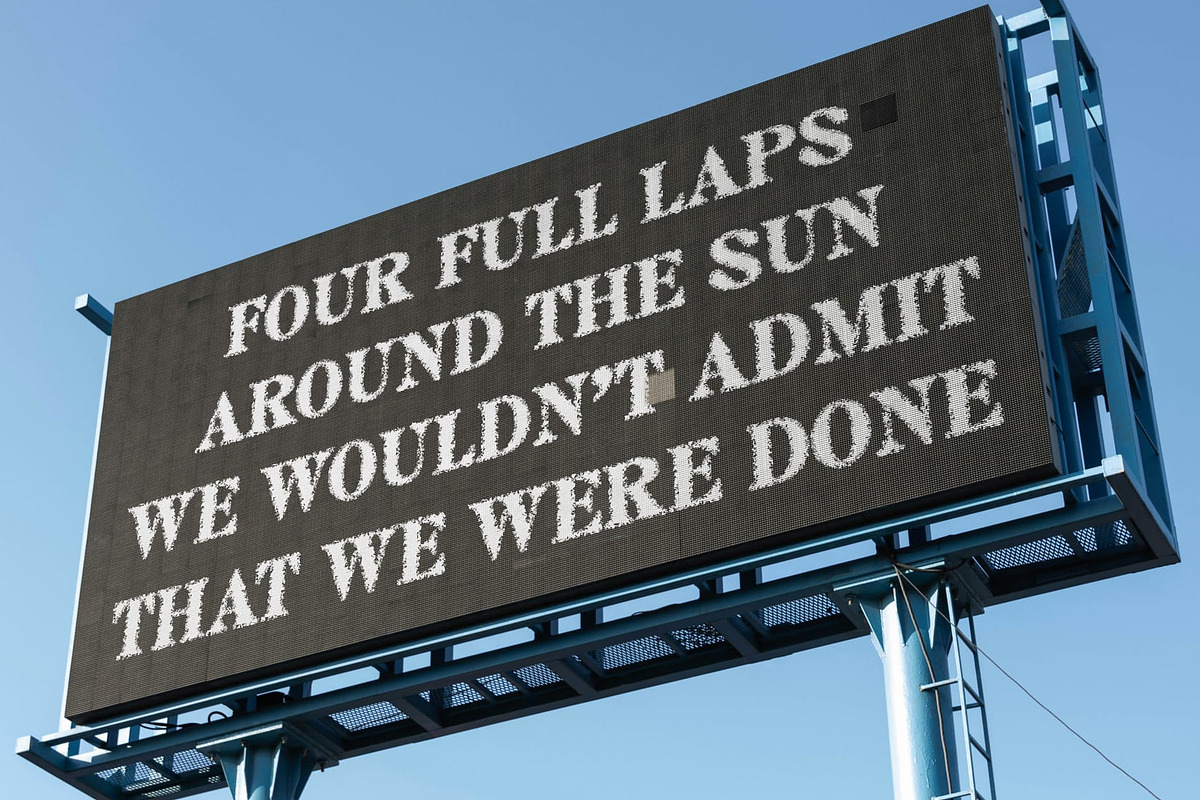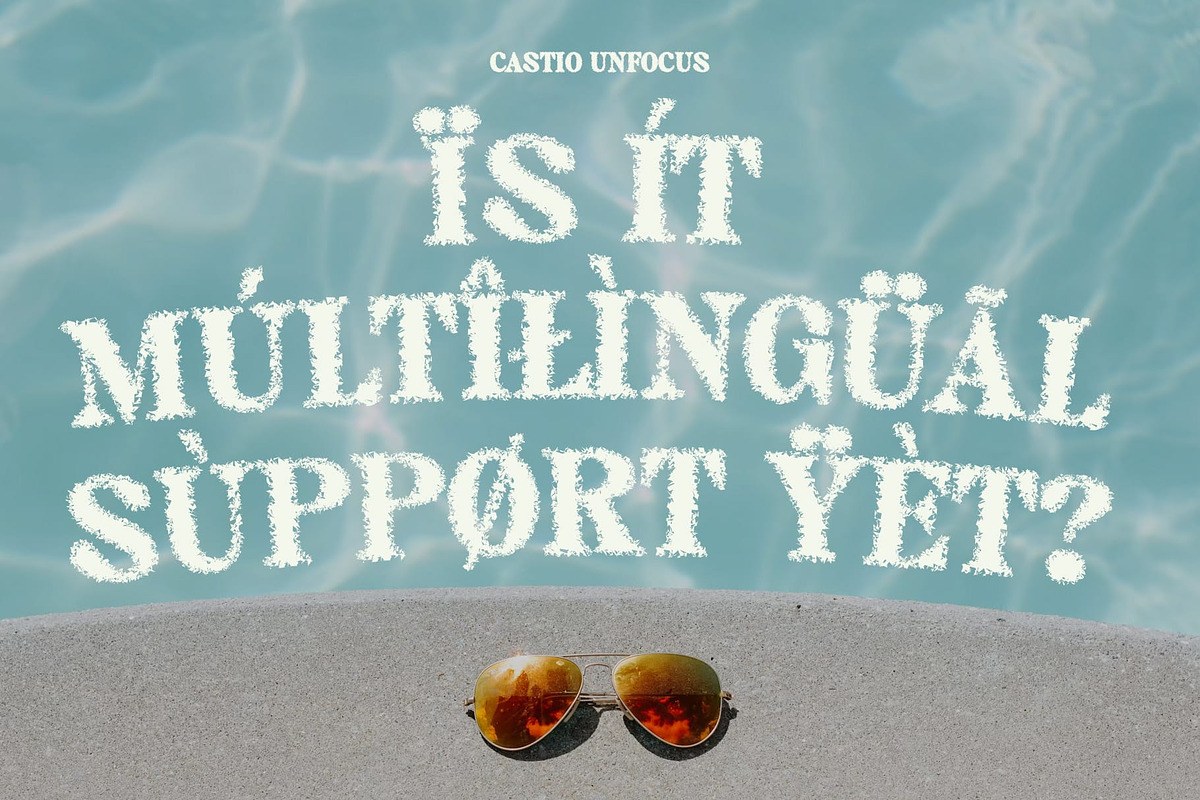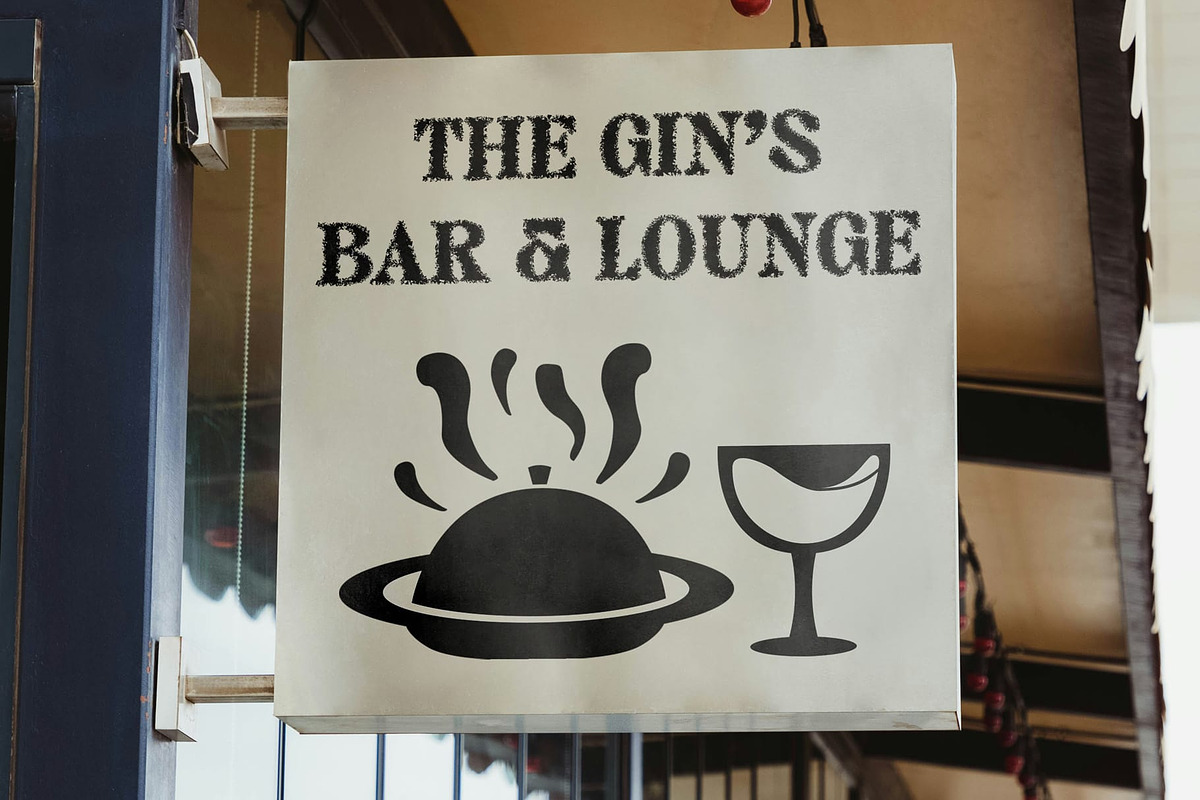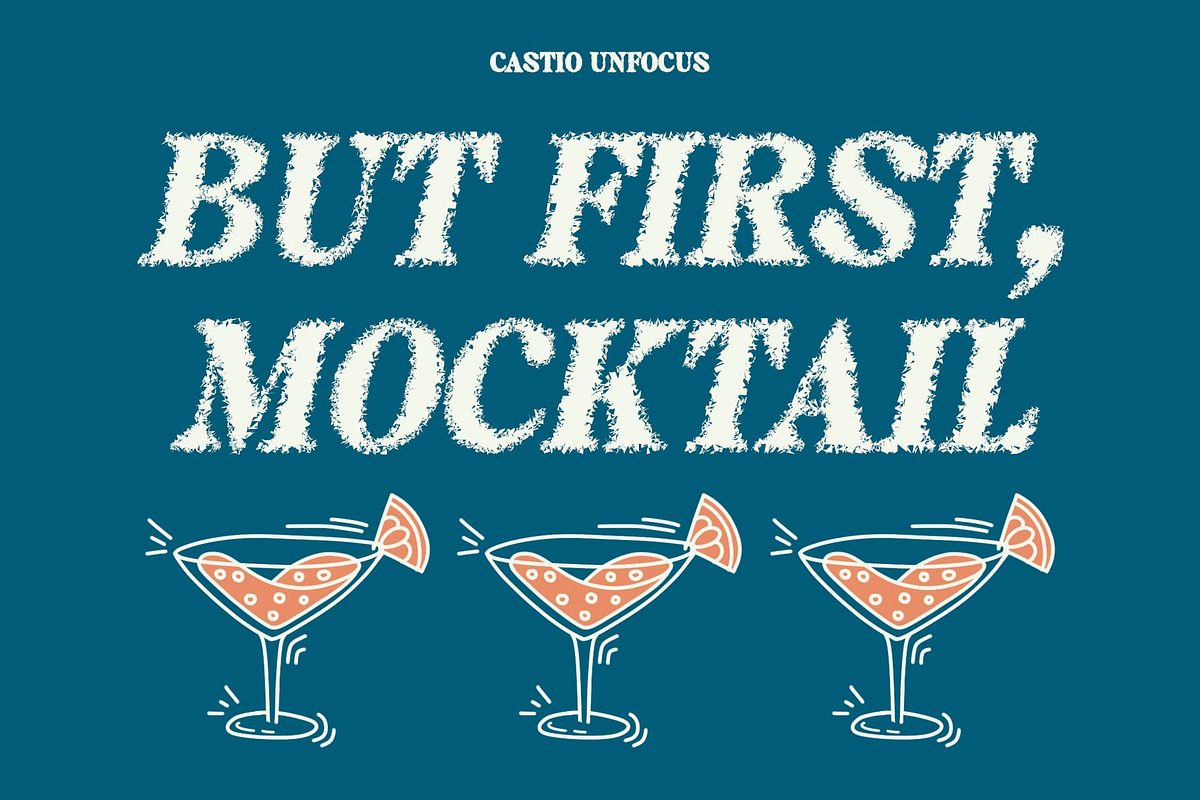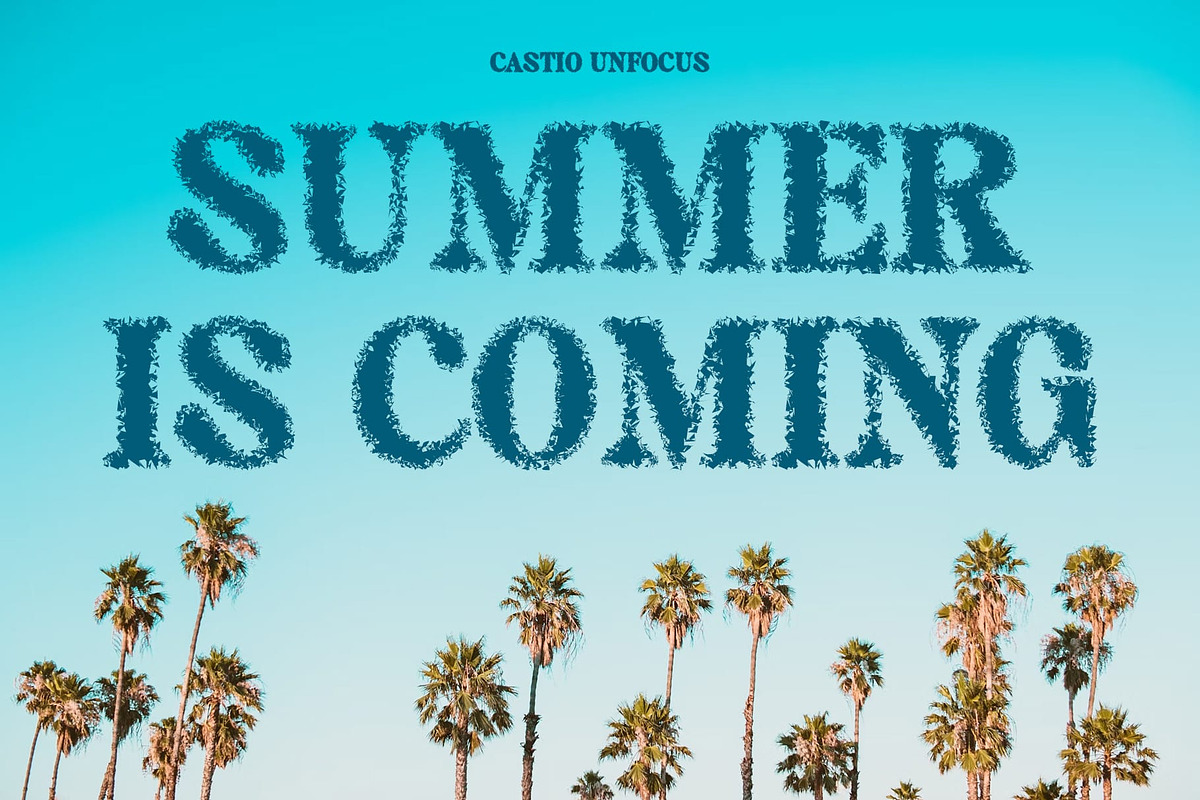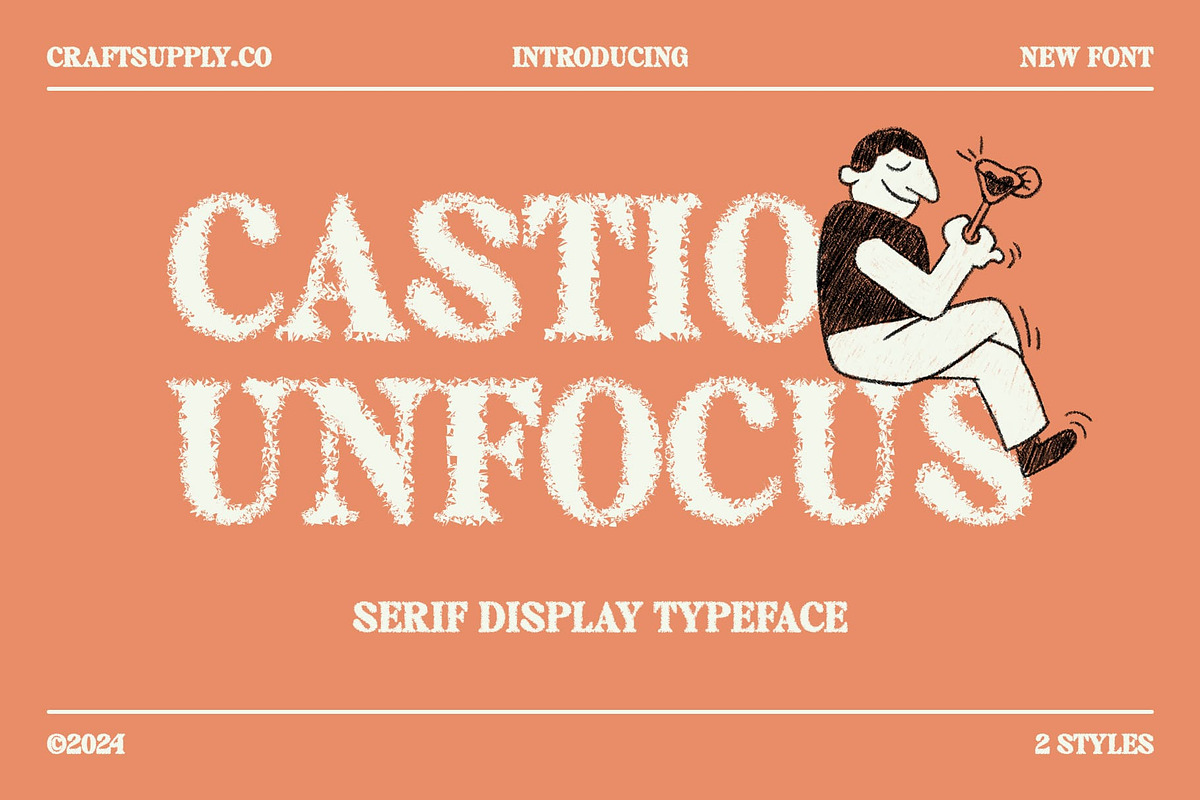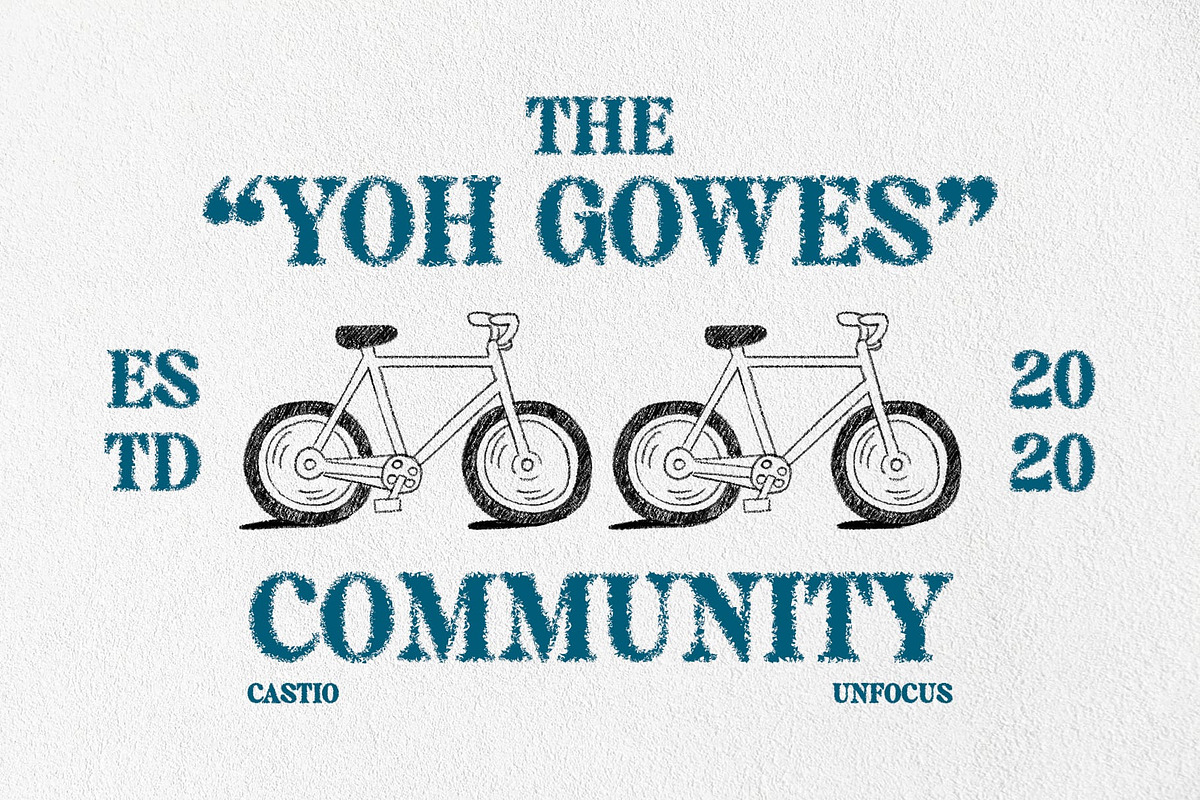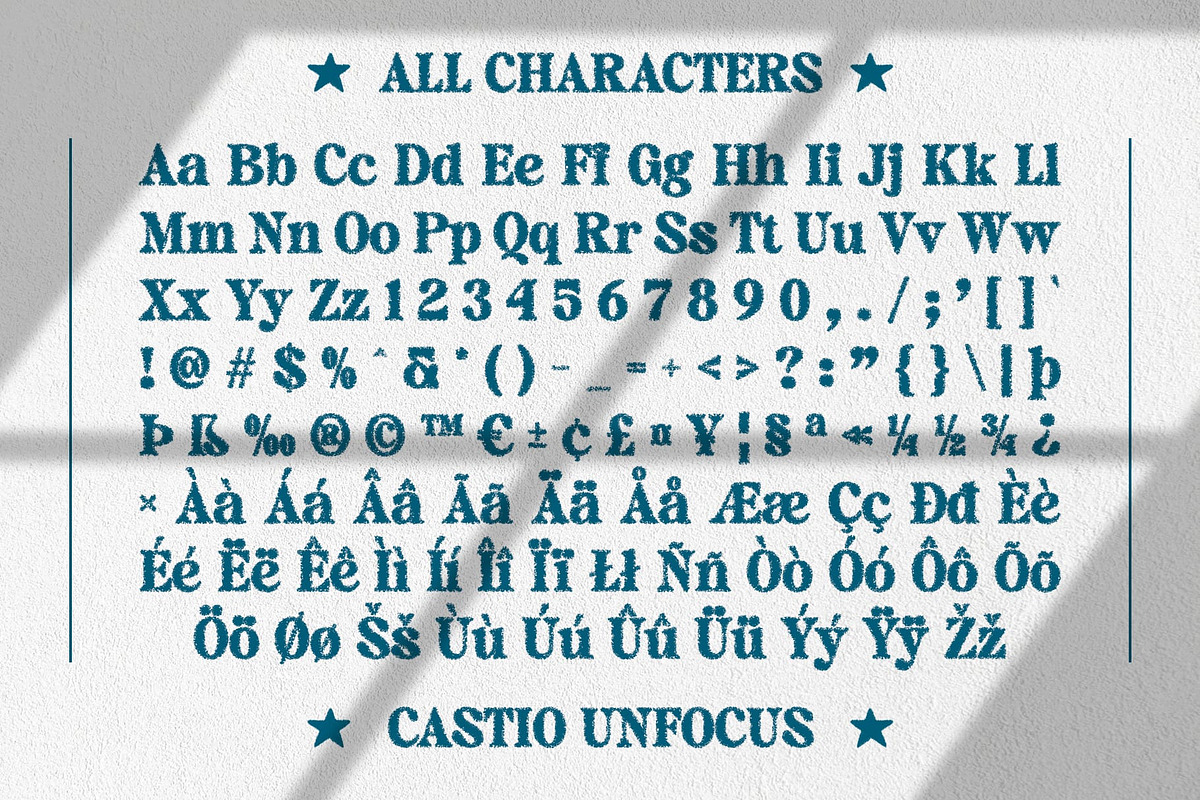
Castio Unfocus
Castio Unfocus: Retro Serif Font with a Unique Twist
Retro Font with Unfocused Effect
Castio Unfocus is a serif font that blends a retro feel with an unfocused effect, offering a unique and intriguing classic vibe. The combination of its distinctive retro serif design with the unfocused effect creates an artistic and distinctive look.
Ideal for Vintage-Inspired Designs
This font is suitable for designs that aim to evoke a unique and captivating vintage feel. Whether you’re creating posters, product packaging, or other graphic designs, Castio Unfocus can help you achieve a nostalgic and stylish look.
Distinctive and Captivating
Castio Unfocus stands out with its distinctive style and captivating appearance. The unfocused effect adds depth and character to the font, making it a versatile choice for designs that require a touch of vintage charm.
Enhance Your Designs with Castio Unfocus
With its retro serif design and unfocused effect, Castio Unfocus is the perfect font for designs that need to evoke a classic and nostalgic vibe. Whether you’re working on posters, product packaging, or other graphic designs, this font will add a unique and captivating vintage feel to your projects.
- Castio Unfocus Regular
- Castio Unfocus Italic